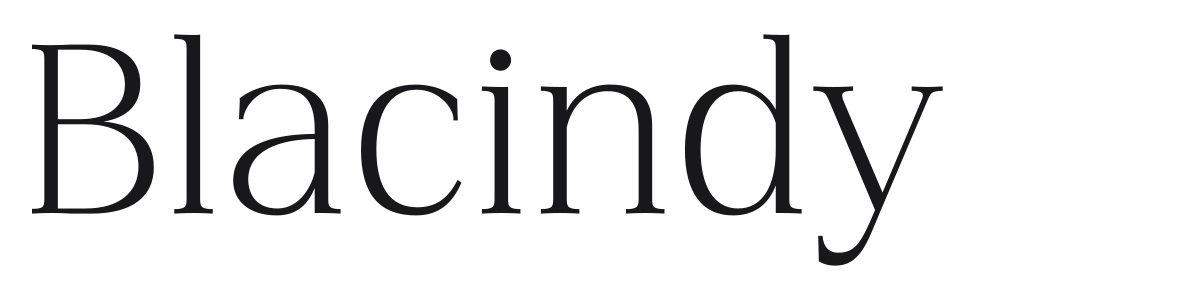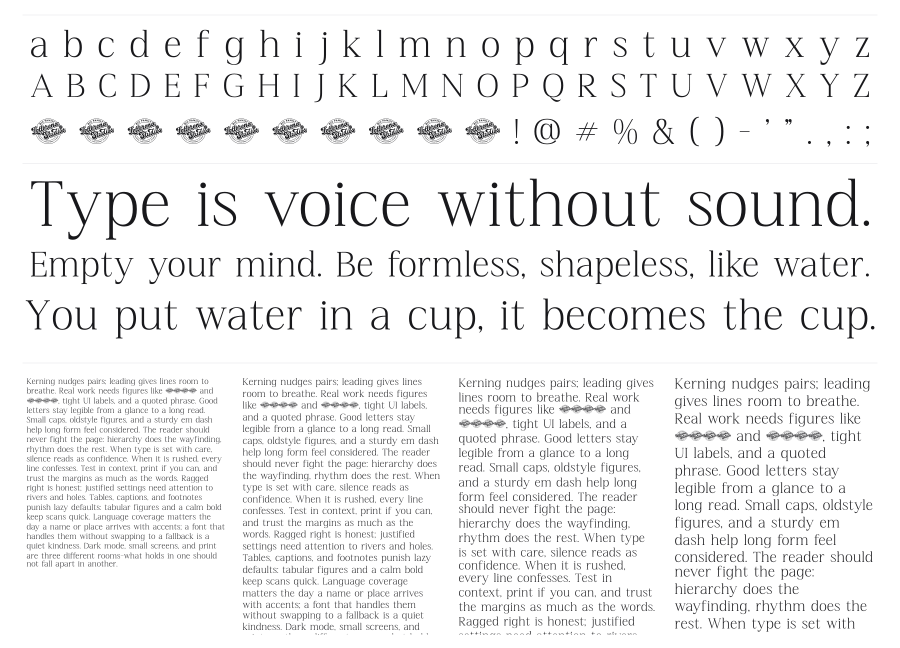
Blacindy
Blacindy is a contemporary thin serif with high stroke contrast and a delicate, editorial presence. The fine hairline strokes and open apertures give it an airy quality that reads beautifully at large sizes in fashion, beauty, and lifestyle contexts. This demo is the light end of a full serif family designed for headline and branding use.